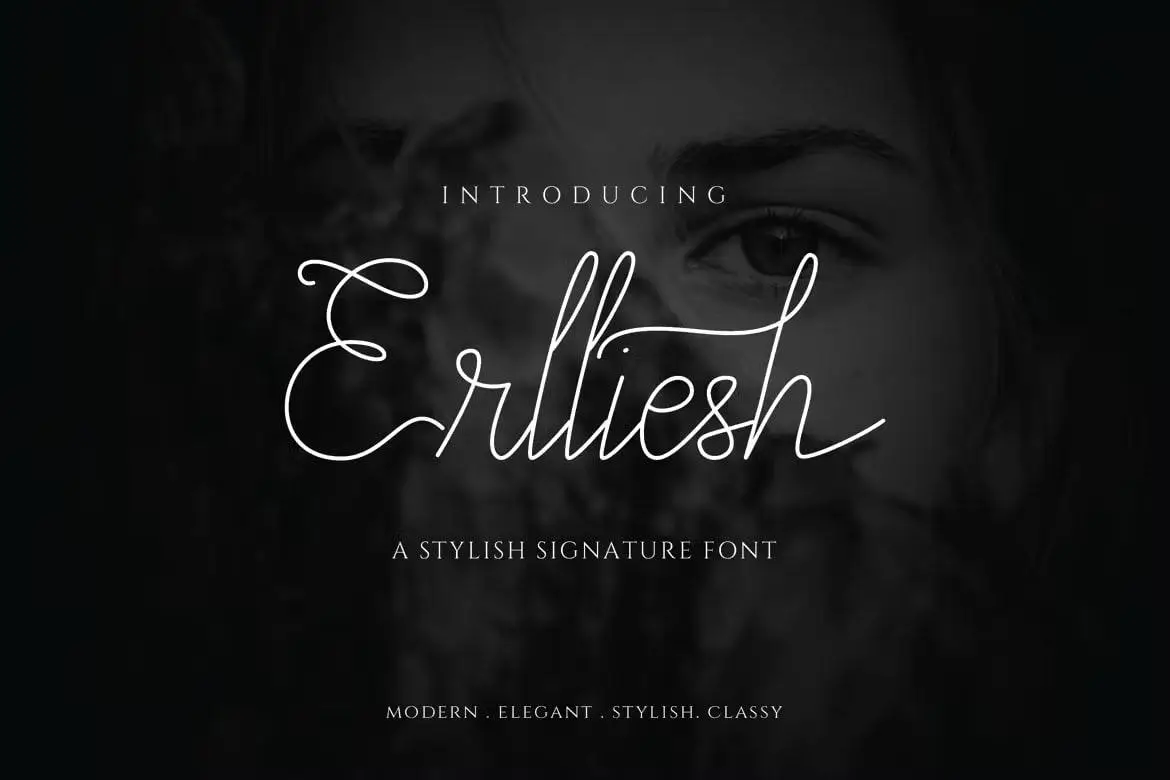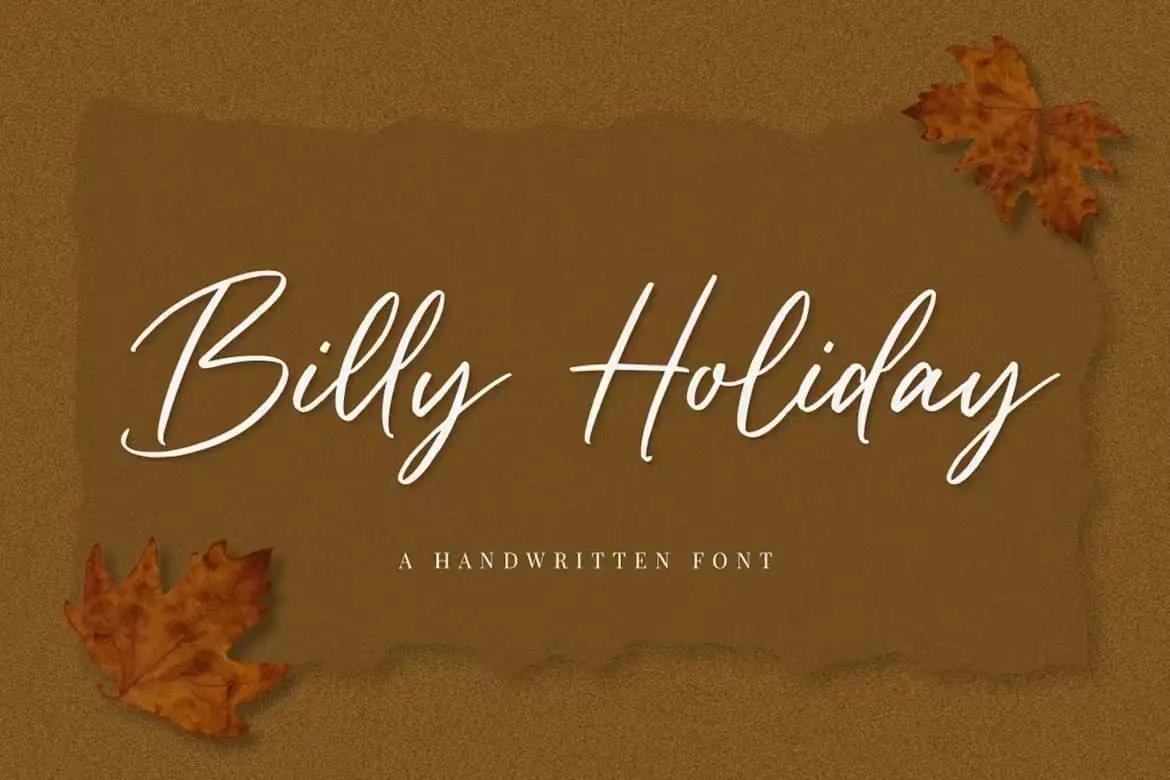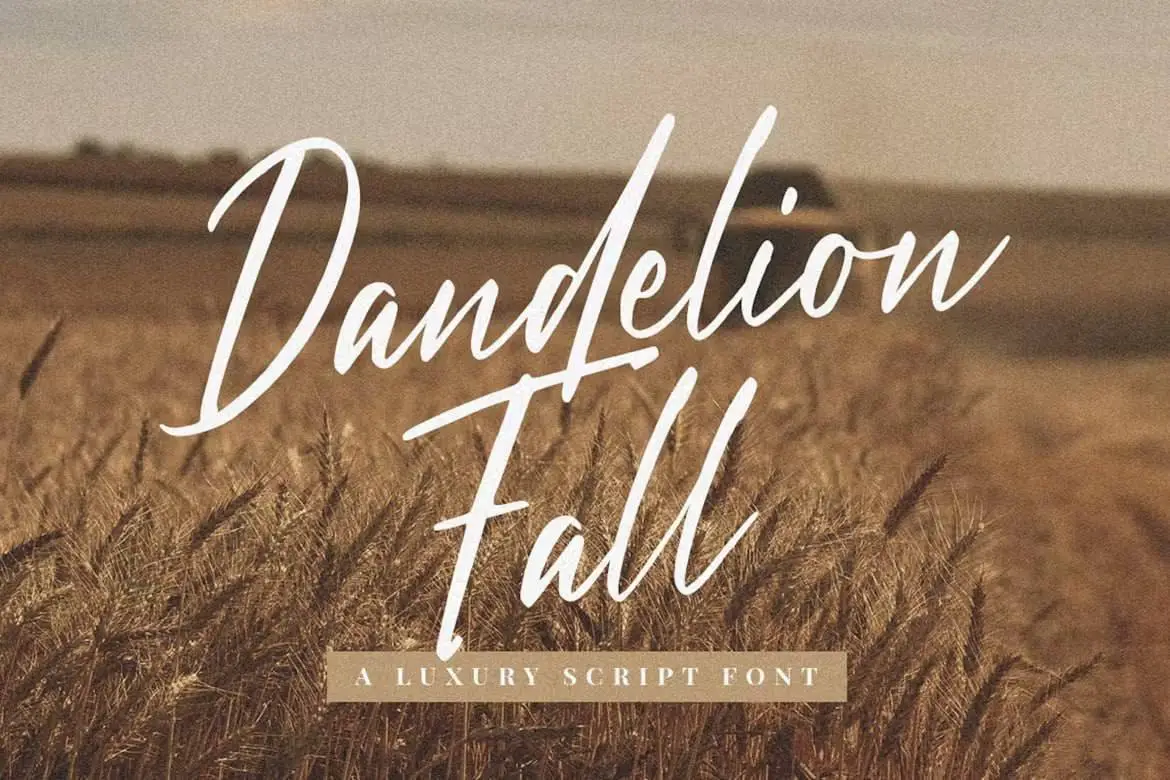
Script And Handwritten Fonts Set 1
Introducing the Script And Handwritten Fonts Set 1, a carefully curated collection of unique typefaces that capture the essence of handwritten artistry. This set features a variety of styles, from elegant scripts to casual handwritten fonts, perfect for adding a personal touch to your projects.
• Multiple font styles for versatile applications
• Includes both script and handwritten designs
• Easy to read and aesthetically pleasing
• Styling: Cursive, Casual, Decorative
• Ideal for branding, logos, invitations, and greeting cards
• Perfect for web design, social media graphics, and print materials
• Combine different fonts from the set for a cohesive look